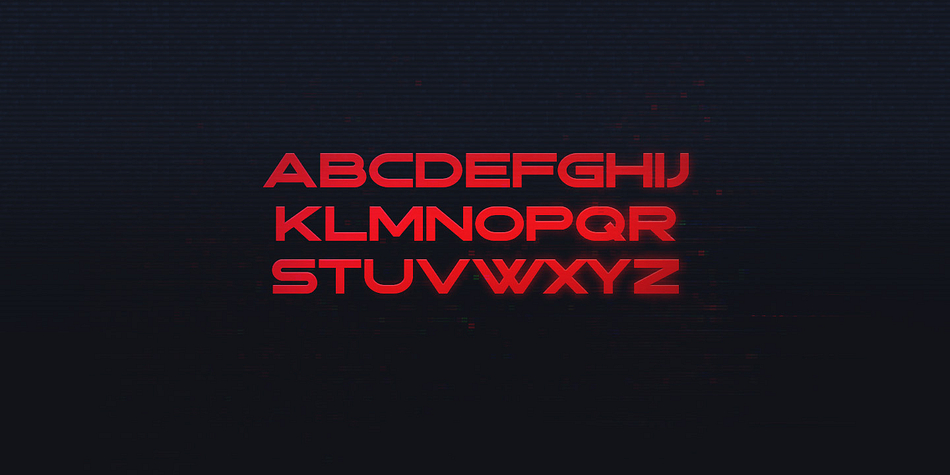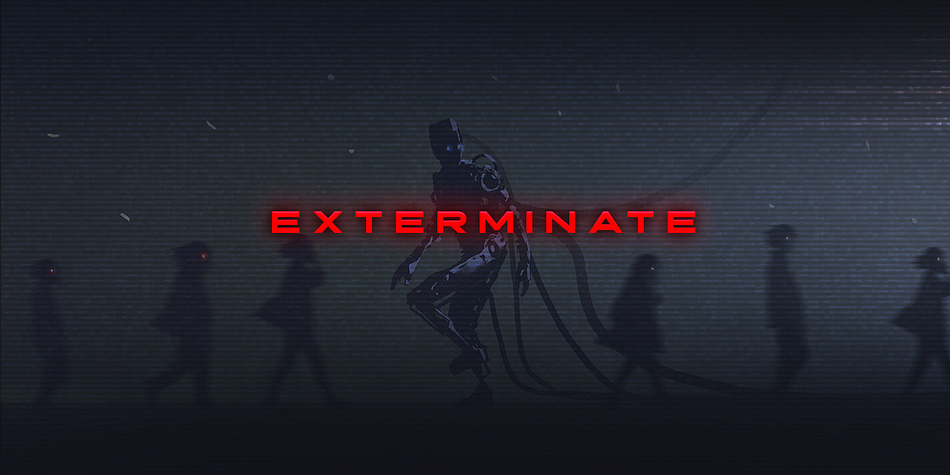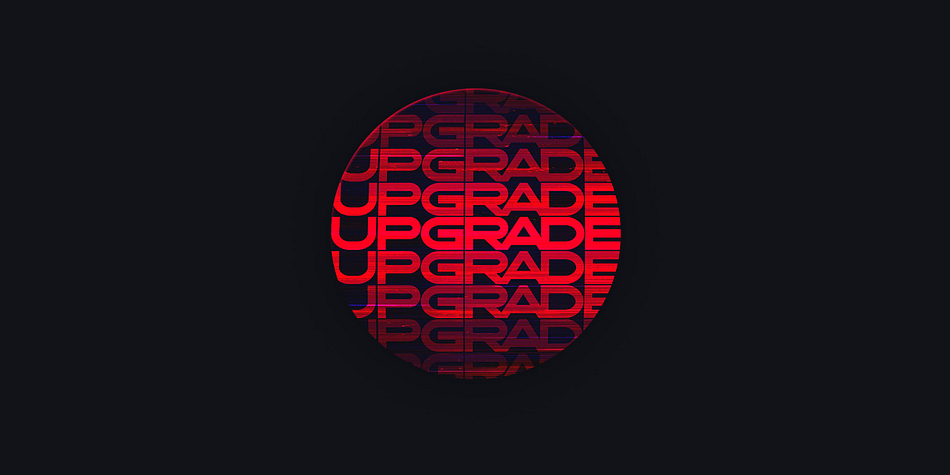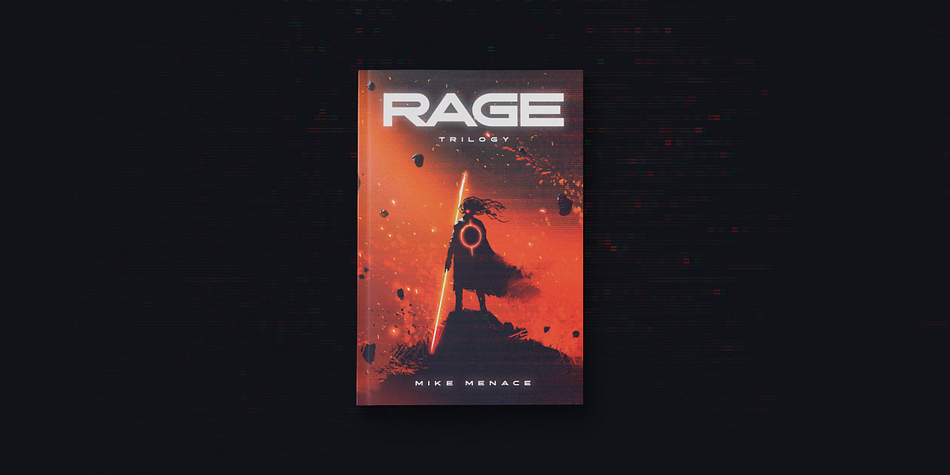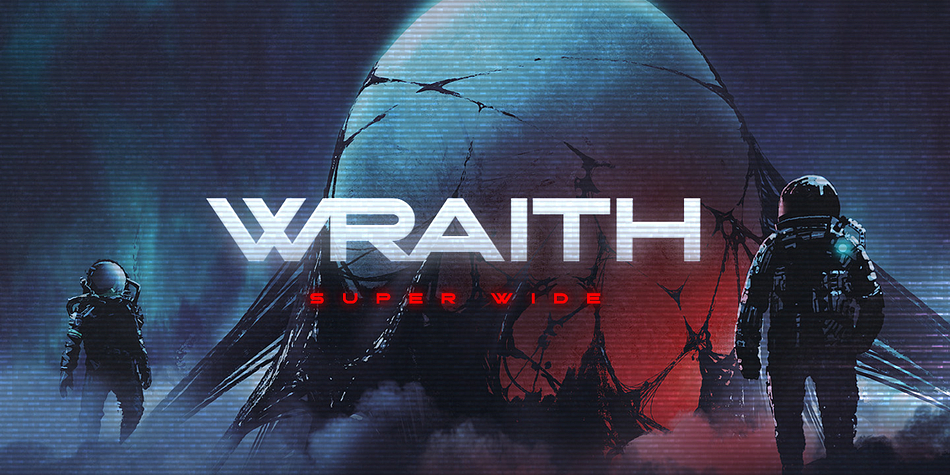
Wraith is a display sans font published by Tugcu Design Co.
Wraith is a wide font with ultra tight spacing. It includes uppercase multilingual letters, numbers and punctuation.
The font pairs well with other script fonts and sans-serif fonts, it’s ideal for titles and not long blocks of text. The download also includes the webfont.